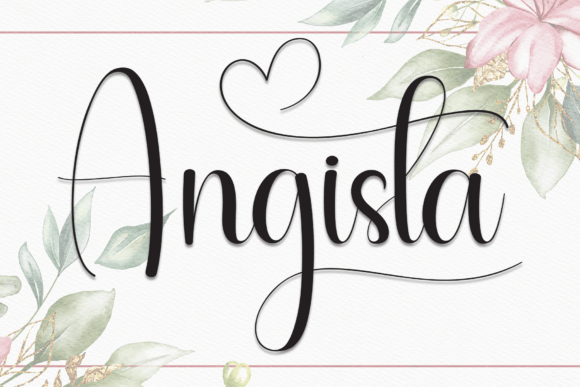
The Perfect Script: Unveiling Angista Font
Have you ever been stuck in the middle of a creative project, desperately searching for the perfect font to bring your vision to life? It’s that moment when you’re browsing through endless options, and suddenly, a font catches your eye, and you know it’s the one. That’s exactly what happened to many designers when they stumbled upon the stunning Angista Font.
Angista Font is a stylish handwritten script that exudes elegance and fluidity, making it a perfect fit for branding, invitations, and creative projects. Its smooth, flowing strokes create a natural and sophisticated feel that’s hard to resist. With a delicate balance of charm and modernity, this typeface adds a personal, artistic touch to any design.
Angista Font Key Features
- Unique Characteristics: Angista Font features a unique blend of modern and vintage elements, with intricate details and ornate flourishes that add a touch of elegance to any design.
- Font Weight: Angista Font comes in multiple weights, from Light to Extra Bold, allowing designers to achieve a range of visual effects and emphasis.
Review of Angista Font
Overall, I found Angista to be a unique and intriguing font. It’s got a lot of character, and I can see it being used effectively in designs that need to convey a sense of elegance and sophistication.
- ✨ Beautifully crafted letterforms that are both intricate and elegant
- ✨ Unique and distinctive feel that sets it apart from more generic fonts
- ⚠️ May not be suitable for designs that require a more neutral or modern aesthetic
- ⚠️ Can be difficult to read at very small font sizes due to its intricate details
While Angista may not be the best fit for every design project, I believe it has a lot to offer in the right context. With its unique character and elegant feel, it’s sure to add a touch of sophistication to any design that uses it.
Angista Font is a versatile and elegant font that can be used in a variety of applications:
- Food and beverage menus
- Travel and tourism brochures
Remember to pair Angista Font with high-quality images and design elements to create a cohesive and visually appealing design.
Alternatives to Angista Font for Designers
Great Vibes is a modern calligraphy font that is perfect for creating a unique and elegant look. It’s ideal for use in headings, titles, and quotes. Great Vibes has a more refined and polished feel compared to Angista Font, which makes it suitable for formal and professional projects.
Comparison: Great Vibes has a more precise and controlled feel, while Angista Font has a more organic and hand-drawn look.
Carolyna Pro is a versatile font that works well for both body text and headings. It’s suitable for use in a variety of projects, from fashion and lifestyle to editorial and creative. Carolyna Pro has a more refined and sophisticated feel compared to Angista Font, which makes it suitable for high-end and luxury projects.
Comparison: Carolyna Pro has a more streamlined and modern feel, while Angista Font has a more playful and whimsical look.
Alex Brush is a elegant script font that is perfect for creating a sophisticated and refined look. It’s ideal for use in headings, titles, and quotes. Alex Brush has a more polished and refined feel compared to Angista Font, which makes it suitable for formal and professional projects.